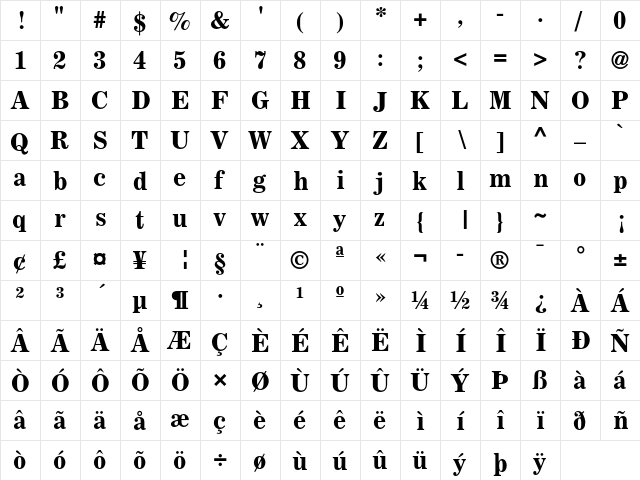
Corona LT Std Bold Face No. 2
| Designer | Chauncey H. Griffith |
Design Context for Corona LT Std Typeface
Corona LT Std is a composed and adaptable typeface that performs quietly and consistently across a wide range of design contexts. The heavy weight commands attention and anchors typographic hierarchies.